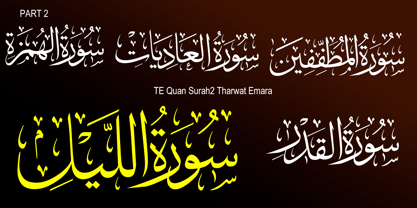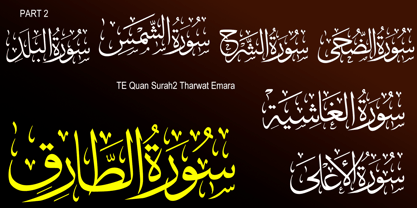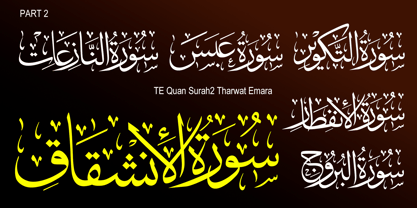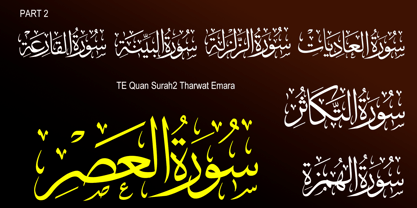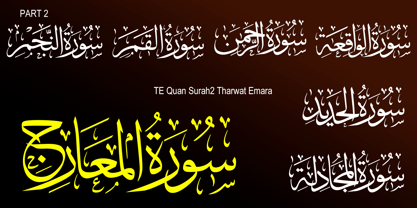
TE Quran Surah2 Tharwat
by Tharwat Emara
The TE Quran Surah2 Tharwat Font Family was designed by Tharwat Mohamed Emara and published by Tharwat Emara. TE Quran Surah2 Tharwat contains 1 styles. More about this family
TE QURAAN – A Premium Typeface for Qur’anic Surah Titles and Juz Numbers Inspired by Thuluth. TE QURAAN is a meticulously crafted Arabic typeface specifically designed for writing Qur’anic Surah names and Juz (parts) of the Holy Qur’an. It captures the elegance of the traditional Thuluth calligraphic style, reinterpreted with modern precision and refined visual balance. Based on an in-depth study of classical Thuluth structures, this typeface presents Surah titles and Juz references in a refined and authentic visual form while ensuring excellent clarity across various applications. Every detail—from proportions and curves to spacing and harmony—has been carefully designed to guarantee both beauty and readability. The typeface is composed of three integrated parts, specifically designed to cover: - Surah names - Juz numbers and titles - Supporting typographic elements for composition and layout This structure provides designers with maximum flexibility in building and arranging Qur’anic titles while maintaining perfect visual harmony across all elements. TE QURAAN is ideally suited for Qur’anic publications, digital applications, premium print materials, and Islamic design projects, offering a distinguished and respectful visual identity. Key Features: - Purpose-built for Surah titles and Juz references - Surah names inspired by traditional Thuluth calligraphy - Three-part system for Surah, Juz, and layout elements - Harmonious balance between tradition and clarity - Ideal for premium print and digital use - Full Arabic language support TE QURAAN is more than just a typeface—it is a complete typographic system that reflects the dignity and beauty of Qur’anic script, making it an essential choice for any project that seeks to honor this sacred text. PART2
Designers: Tharwat Mohamed Emara
Foundry: Tharwat Emara
TE Quran Surah2 Tharwat
Tharwat Emara is an esteemed Egyptian calligrapher, renowned for his exceptional work in the field of Arabic calligraphy. He is recognized for his unique style and his ability to seamlessly blend tradition with innovation, resulting in a body of work that is both timeless and contemporary.Born in Egypt, Tharwat Emara developed a passion for calligraphy at a young age. He honed his skills through years of dedicated practice and study, eventually becoming one of the most prominent calligraphers in the country. His work has been exhibited around the world, and his fonts have been used in a variety of media, including books, advertisements, and logos.What sets Tharwat Emara apart from other calligraphers is his ability to create fonts that are both beautiful and functional. He understands that calligraphy is not just an art form, but a means of communication, and his fonts reflect this understanding. They are clear, legible, and easy to read, while also retaining the aesthetic beauty that is so important to the art of calligraphy.Tharwat Emara's fonts are also notable for their versatility. He has created fonts that are suitable for a wide range of applications, from elegant wedding invitations to bold, modern advertising campaigns. Whether you're looking for a font that is classic and timeless or something that is cutting-edge and contemporary, Tharwat Emara has a font that will suit your needs. One of the things that makes Tharwat Emara's fonts so special is the attention to detail that he puts into every design. He understands that each letter is a work of art in itself, and he approaches each design with the same level of care and precision that he would if he were creating a standalone piece of calligraphy. This attention to detail ensures that each font is not only beautiful, but also functional and easy to use. In addition to his work as a calligrapher, Tharwat Emara is also an accomplished teacher. He has taught calligraphy to students around the world, and his workshops are highly sought-after by both beginners and experienced calligraphers. His approach to teaching is based on his belief that calligraphy is a discipline that requires patience, dedication, and a willingness to learn from both success and failure. He encourages his students to explore their creativity and to find their own unique style, while also providing them with the technical skills they need to create beautiful calligraphy.If you're looking for a calligrapher who combines tradition with innovation, who creates fonts that are both beautiful and functional, and who approaches his work with the utmost care and precision, then Tharwat Emara is the perfect choice. His fonts are among the most distinctive and recognizable in the world of Arabic calligraphy, and they are sure to add a touch of elegance and sophistication to any project.